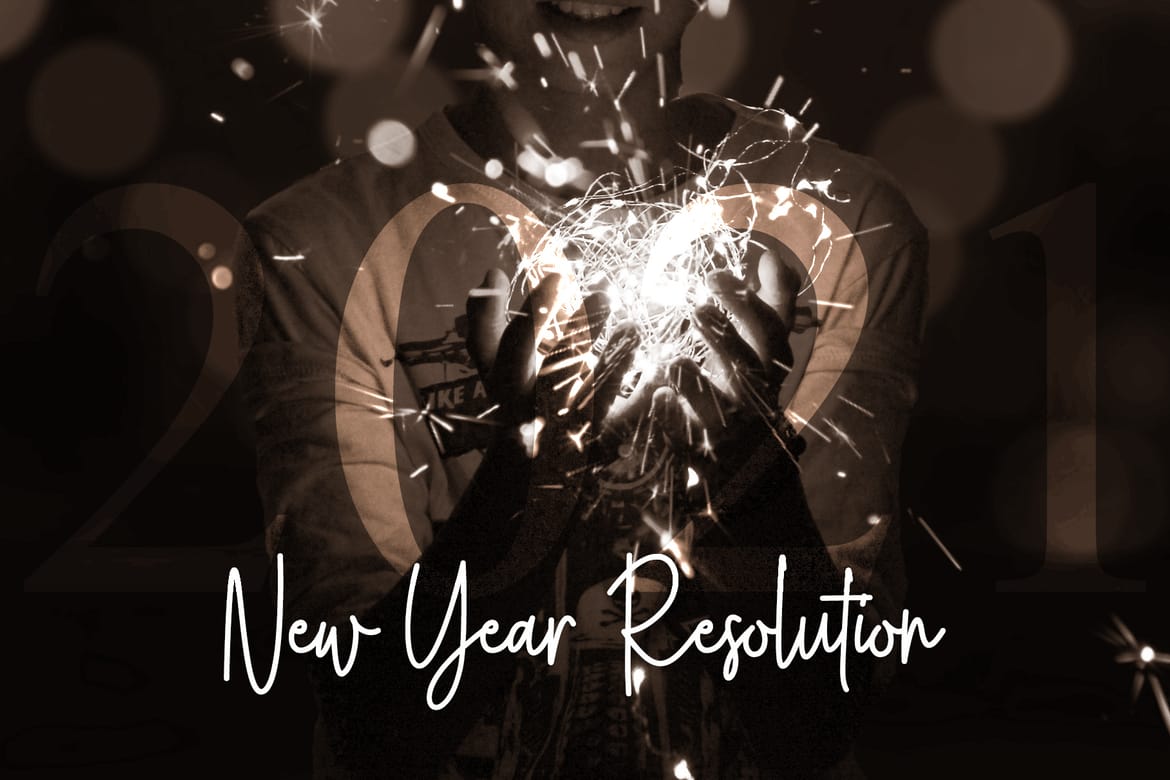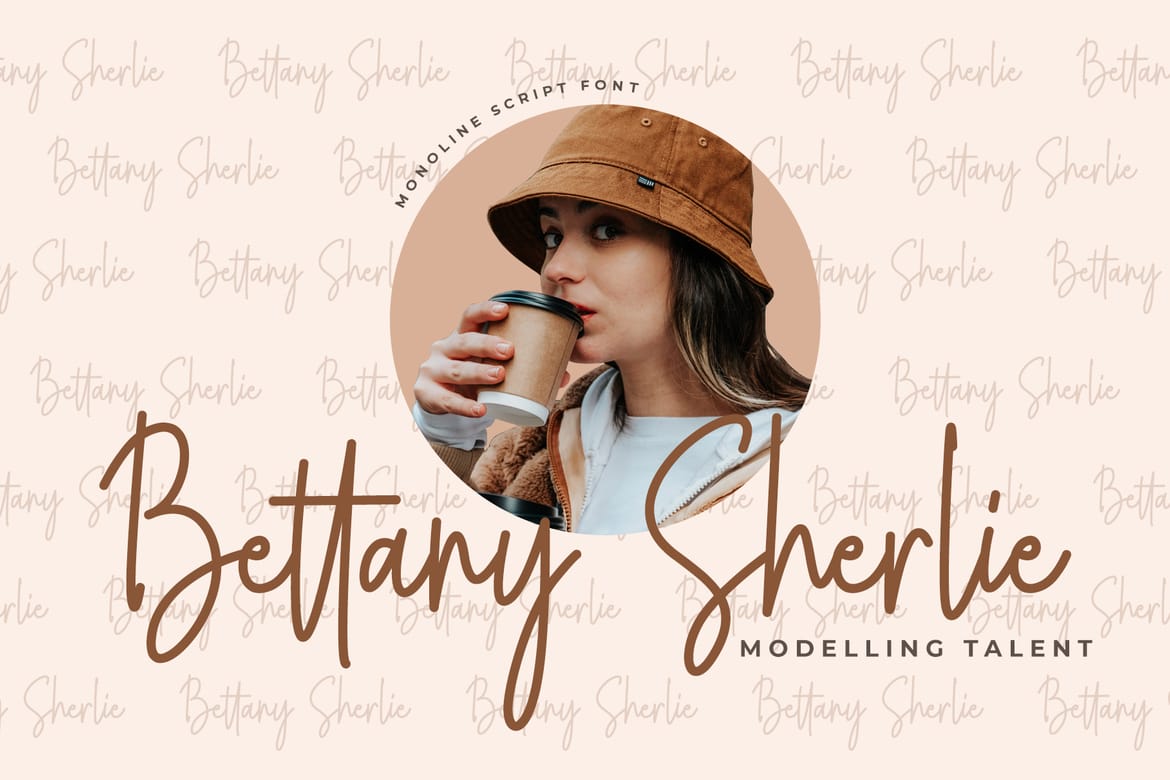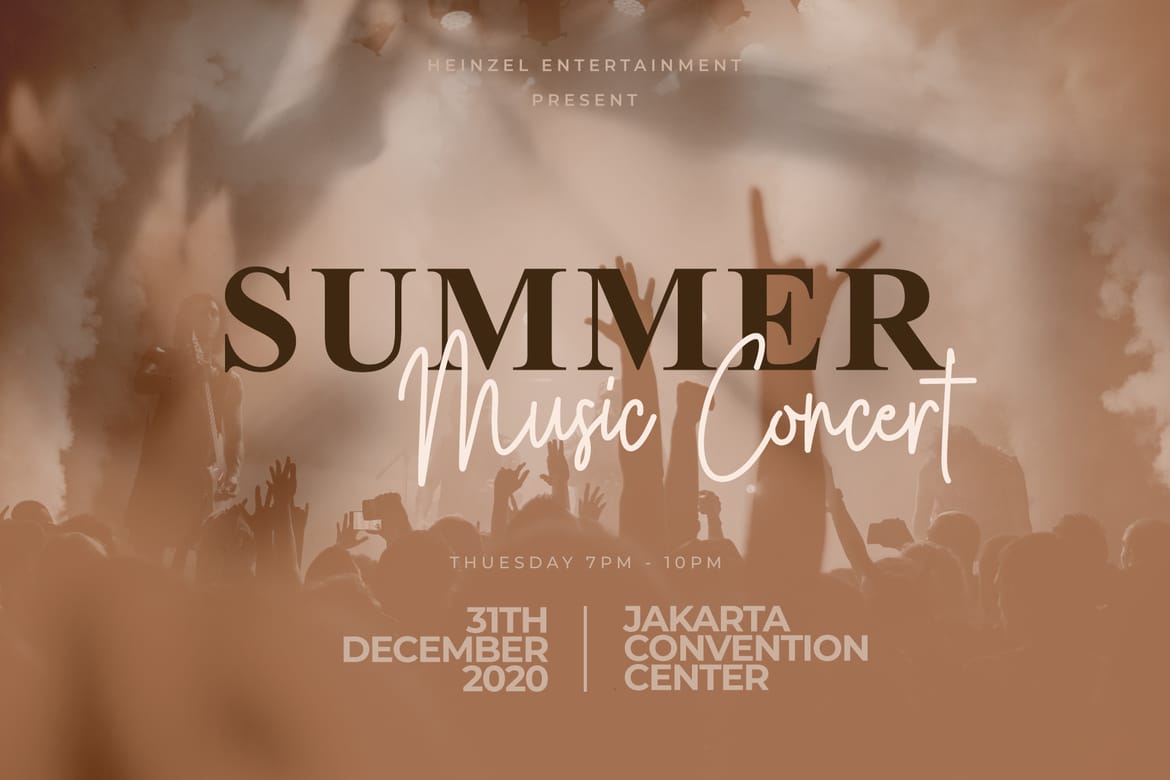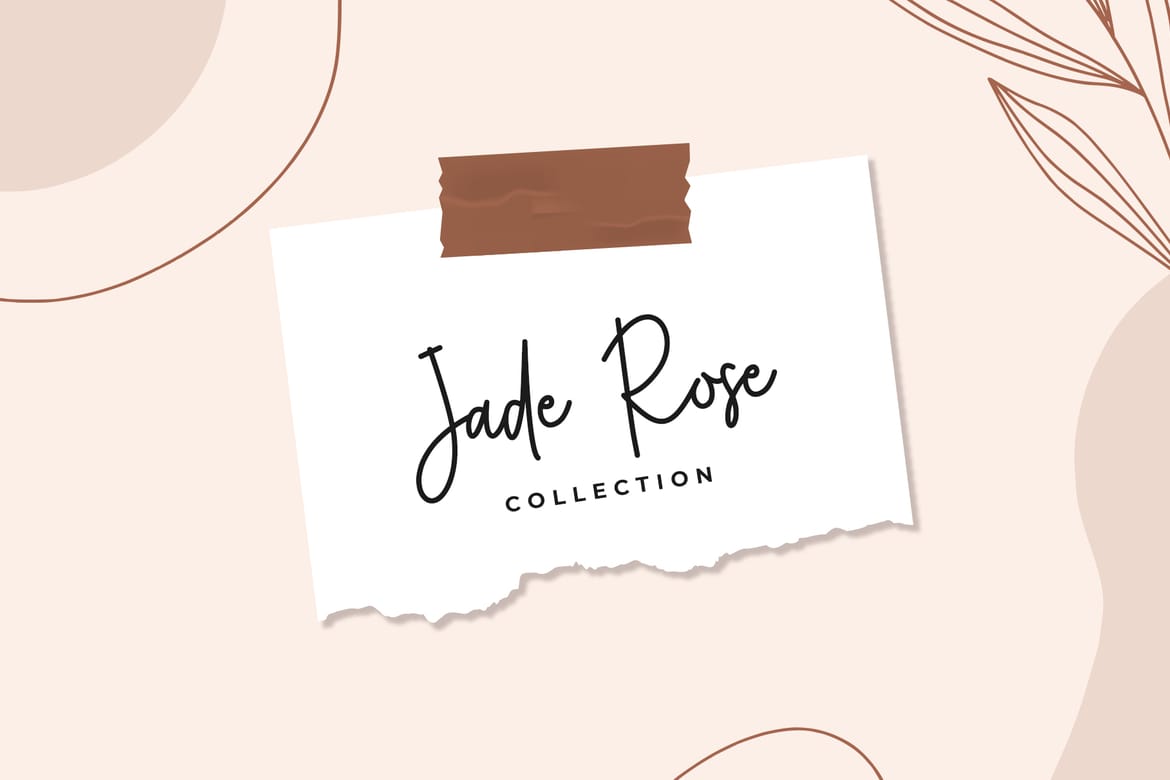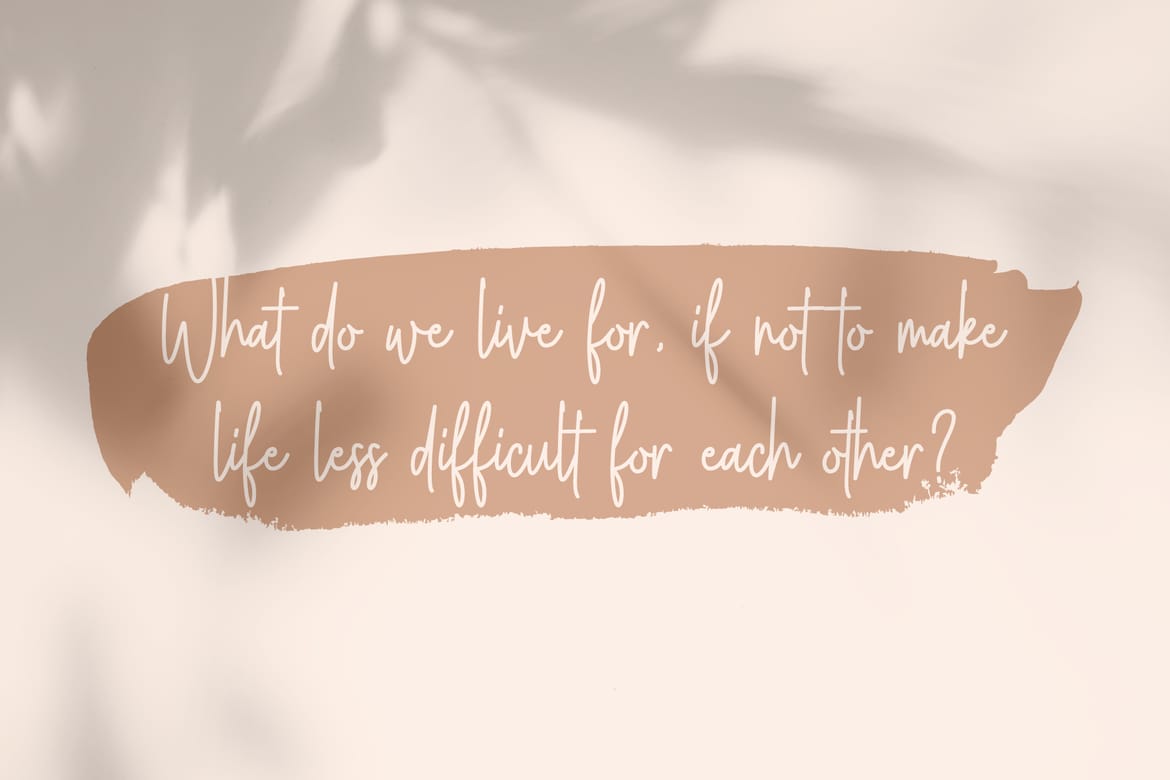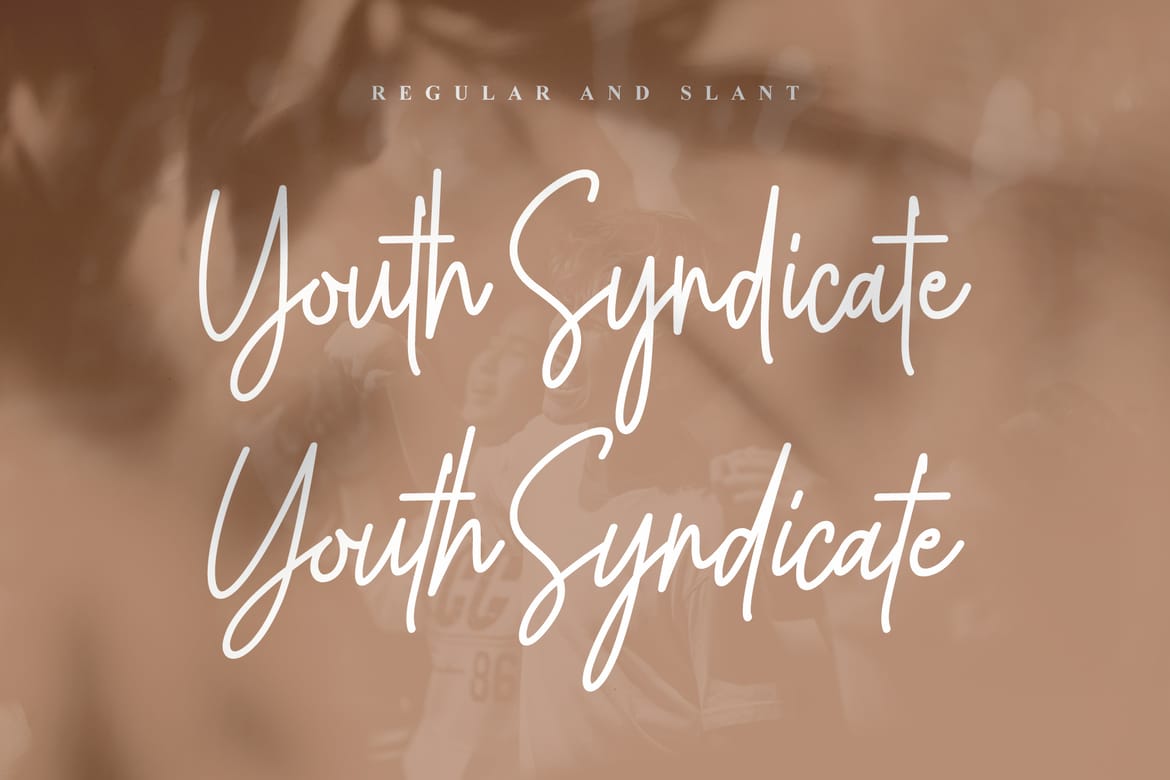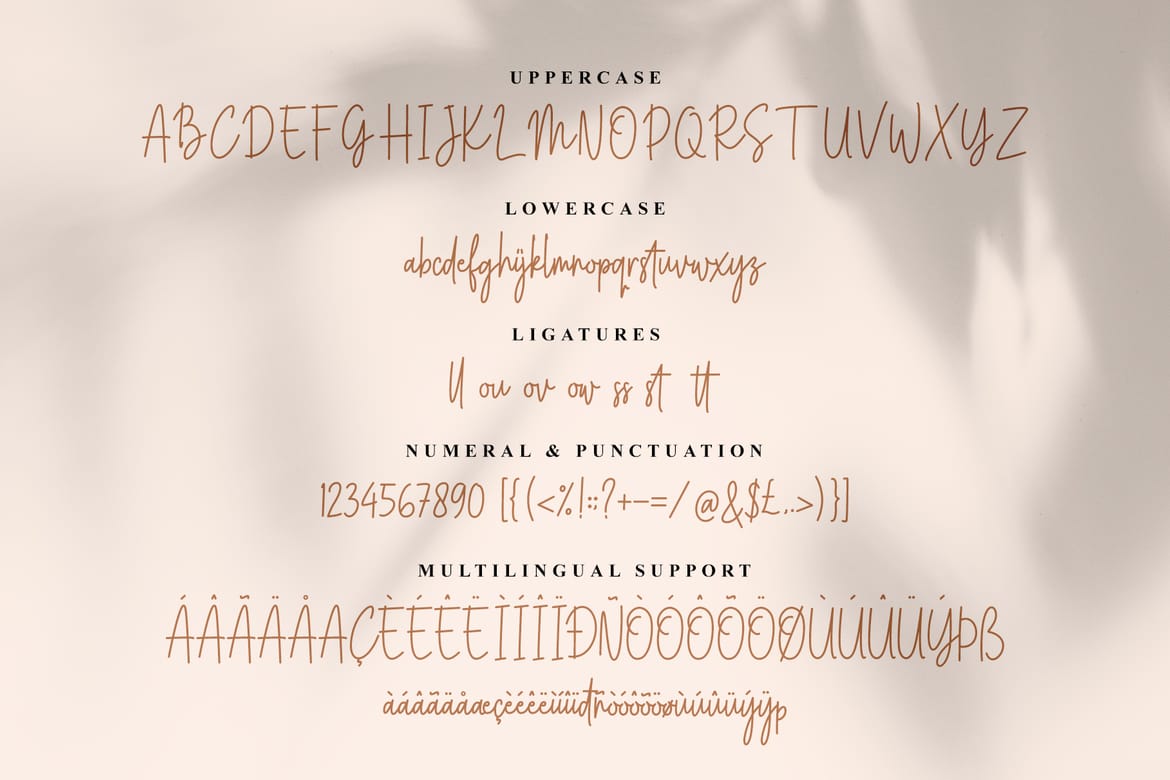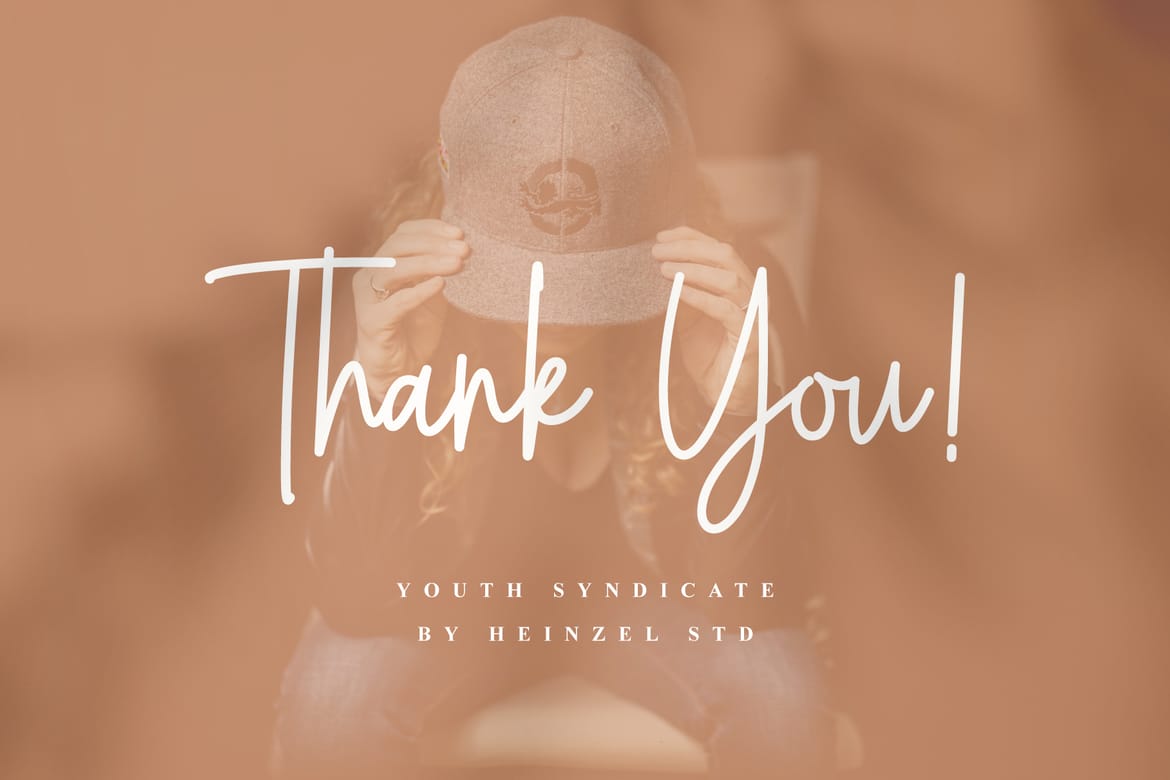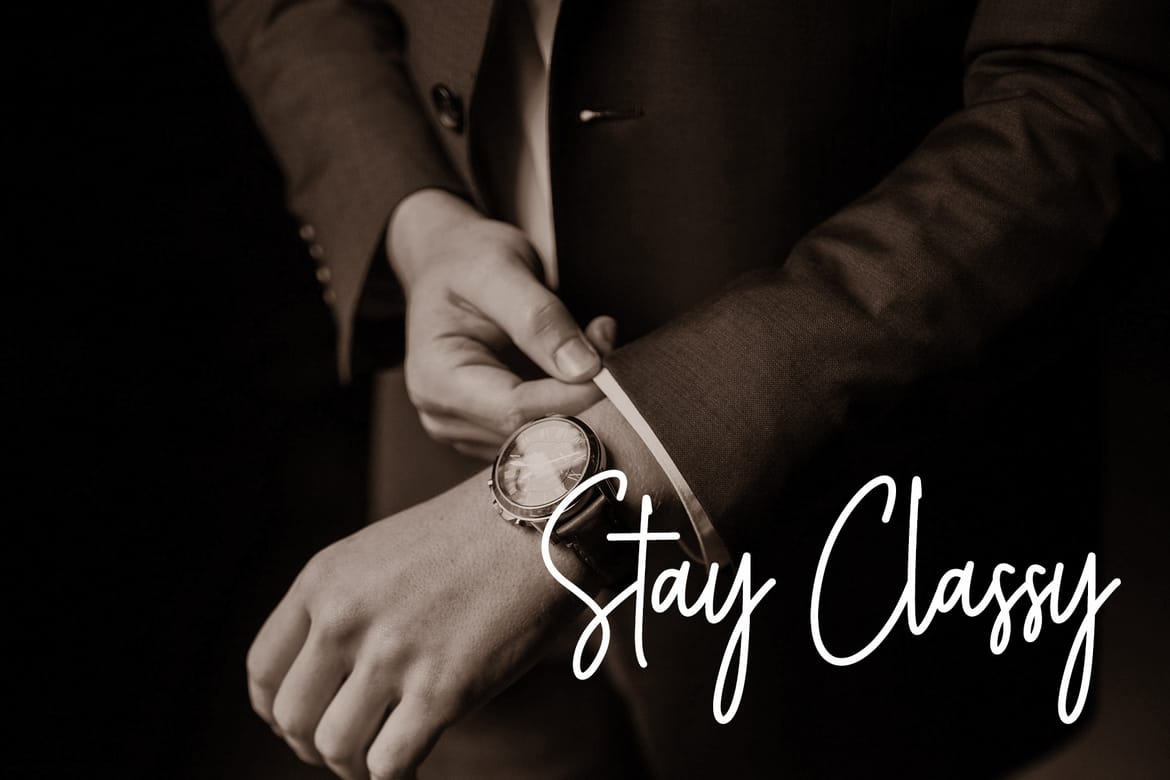
Youth Syndicate is a modern handwritten font that captures the spirit of creativity, freedom, and youthful expression. Designed with natural flowing strokes and authentic handwritten character, this font delivers a personal and stylish touch that feels both elegant and approachable. Its smooth curves and signature-inspired letterforms make it perfect for branding projects, social media content, logo designs, packaging, invitations, quotes, photography overlays, and lifestyle marketing materials.
- Ligatures
- Multilingual Support